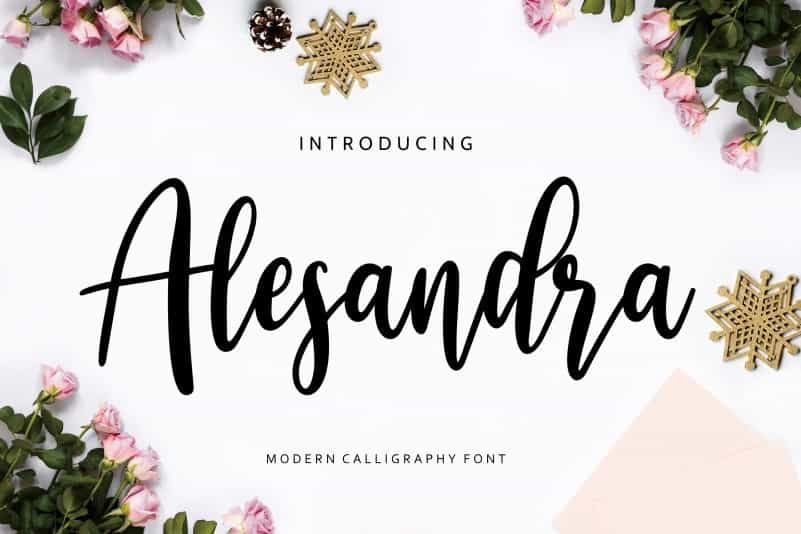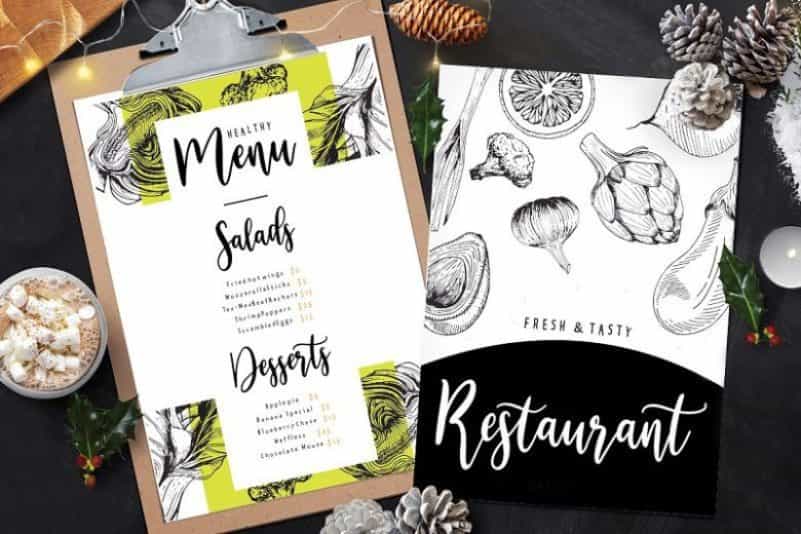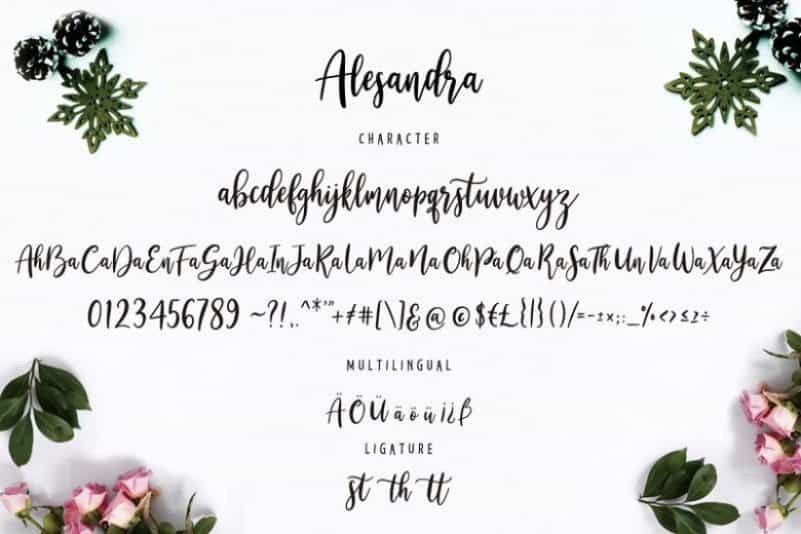
Alesandra is a playful calligraphy script font that has a bit of a messy, hand made feel to it. It is ideal for use in creating items such as invitation cards, letterheads, business cards, t-shirts, mottos and phrases among others. Because of the script style it has, this font is properly named Handy; it definitely brightens up any project that uses script font.